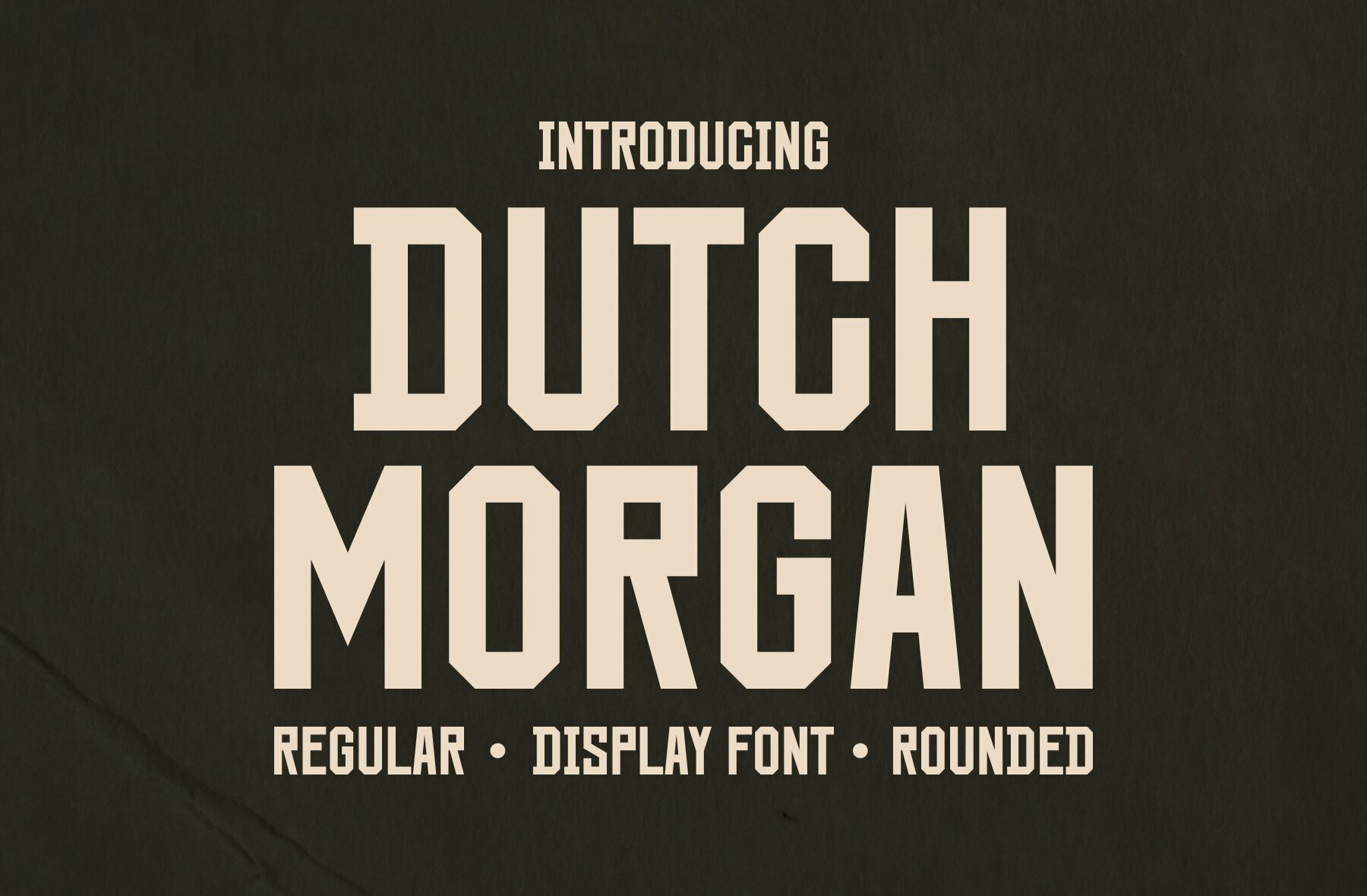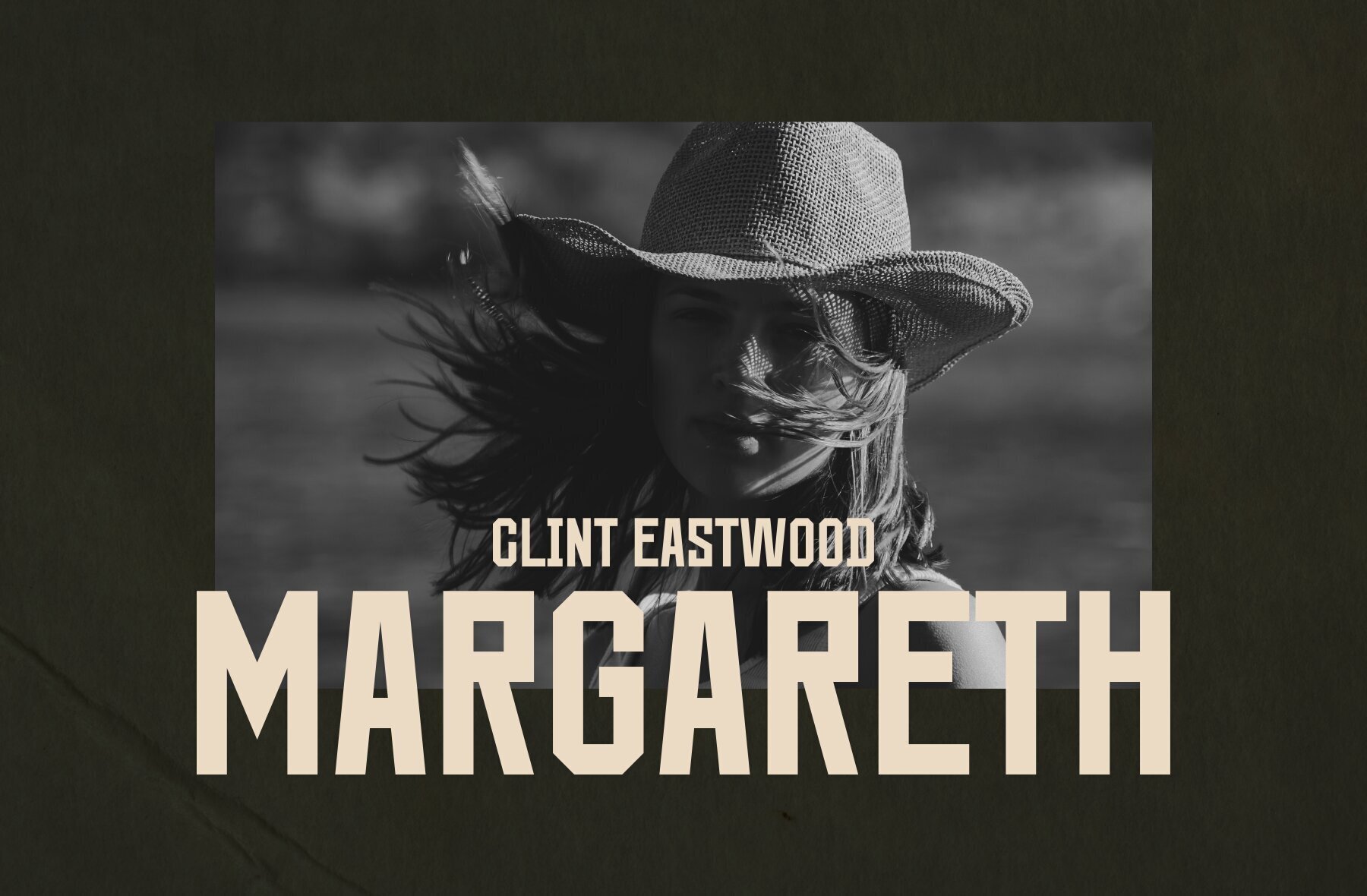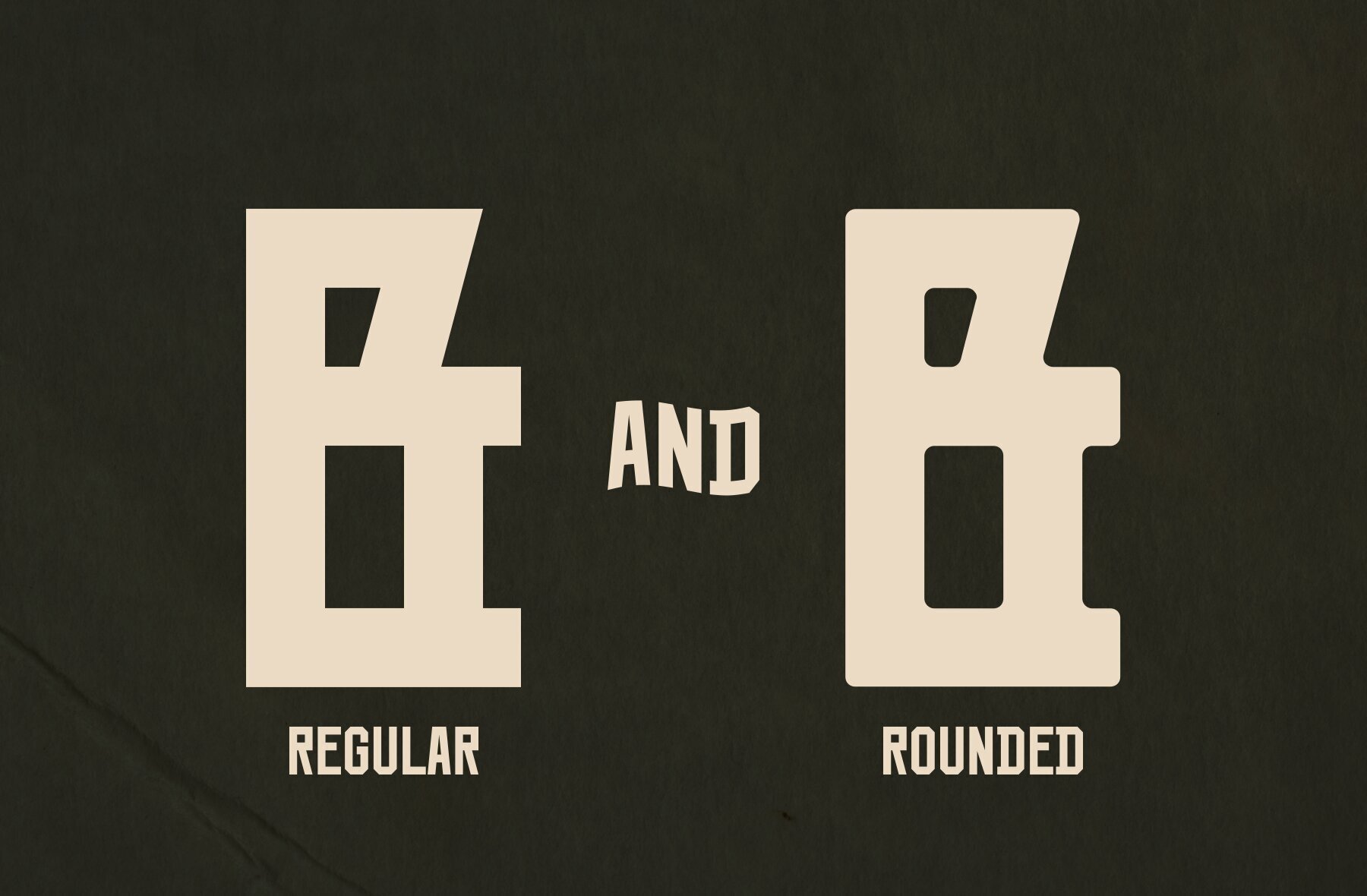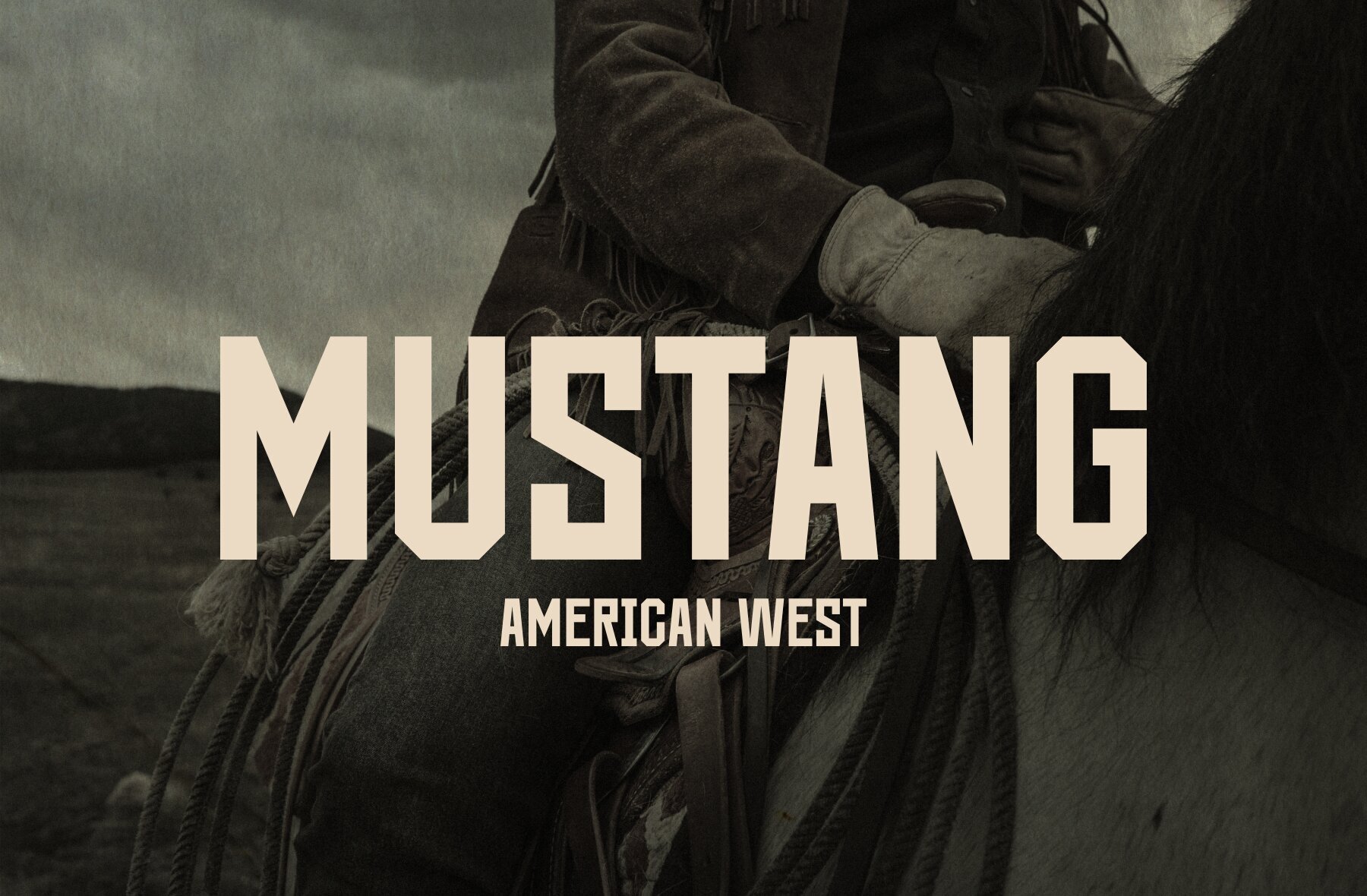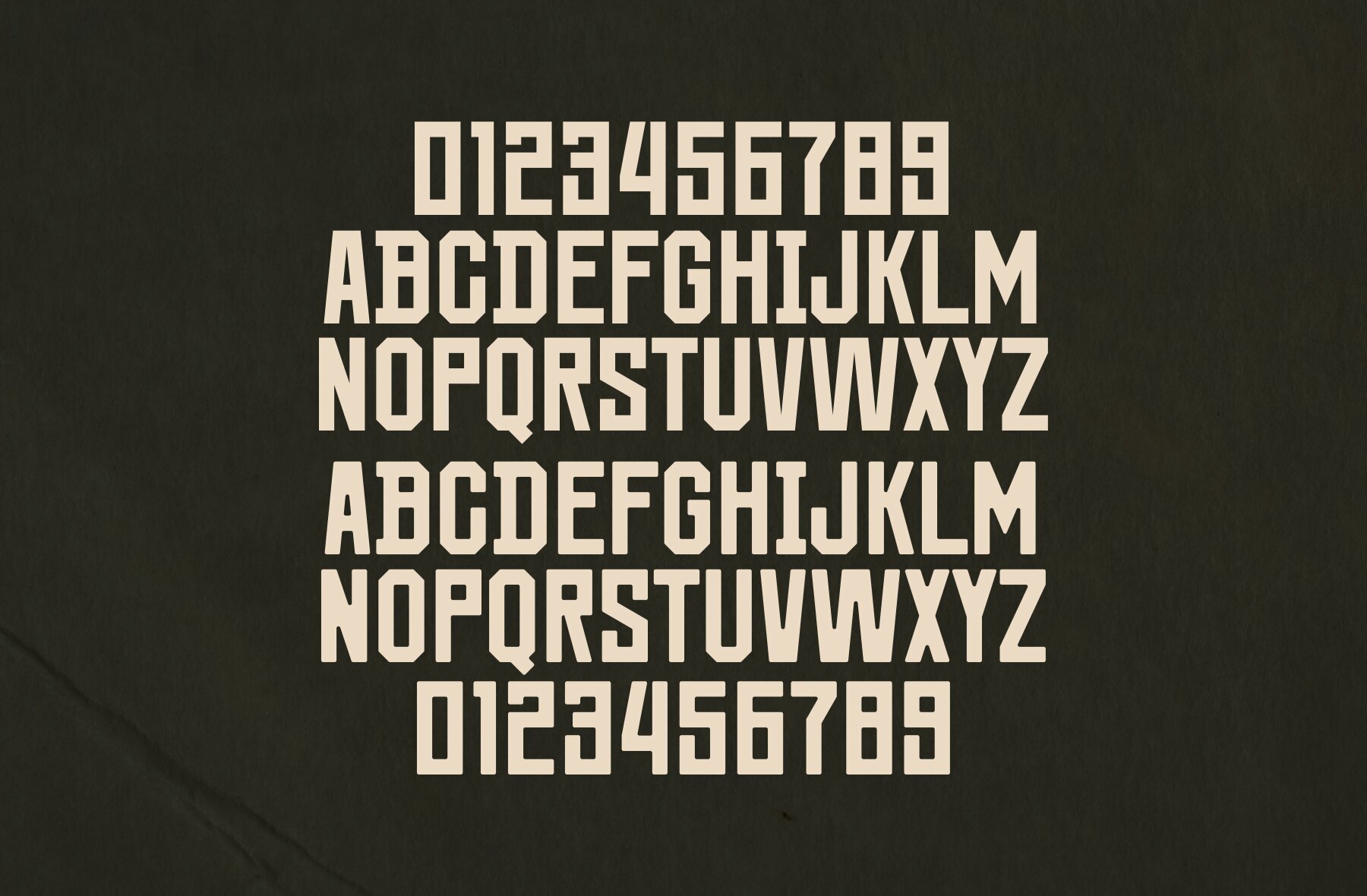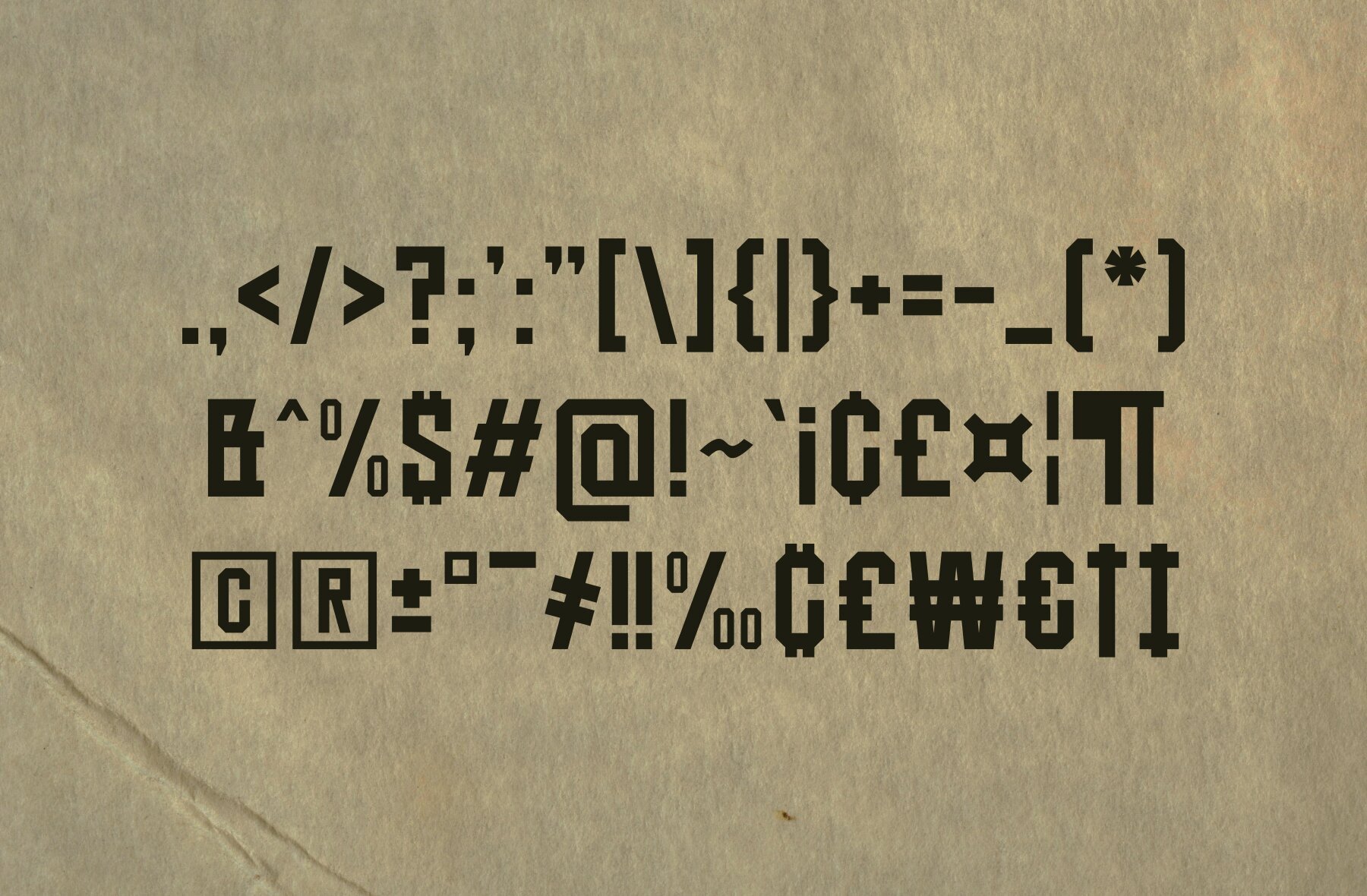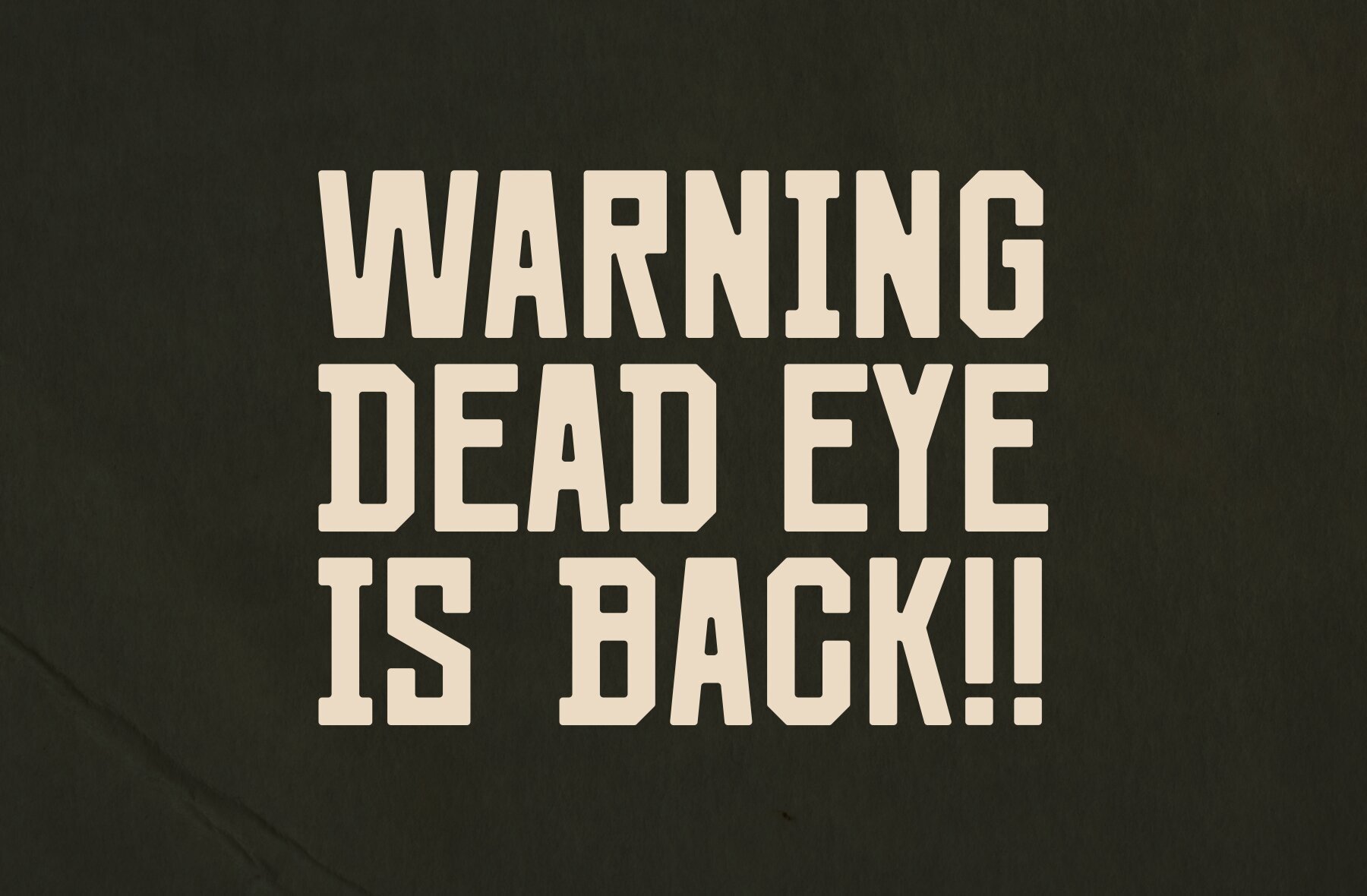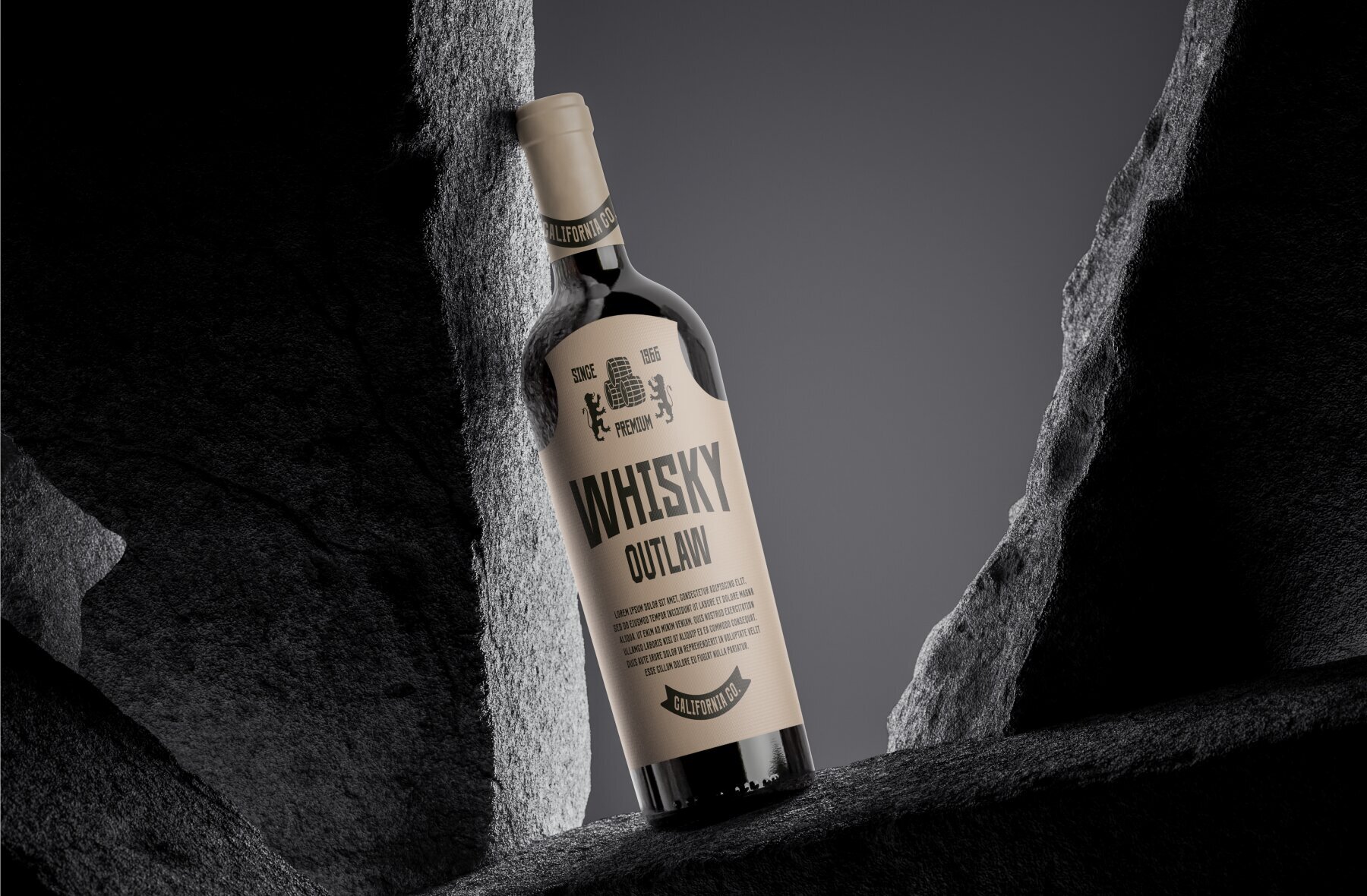
Dutch Morgan Font
Dutch Morgan is a retro-style sans serif font that exudes strength and stability. Its condensed structure offers a bold, compact appearance, perfect for designs needing a robust and confident look. Dutch Morgan comes in two versatile options: Regular and Rounded. The Regular version maintains clean, sharp edges, while the Rounded variant softens the overall feel with smooth, curved corners.
Both styles retain the font's solid and sturdy character, making Dutch Morgan a great choice for projects that combine a vintage aesthetic with modern reliability. Ideal for branding, headlines, and signage, this font effortlessly merges timeless style with contemporary functionality.